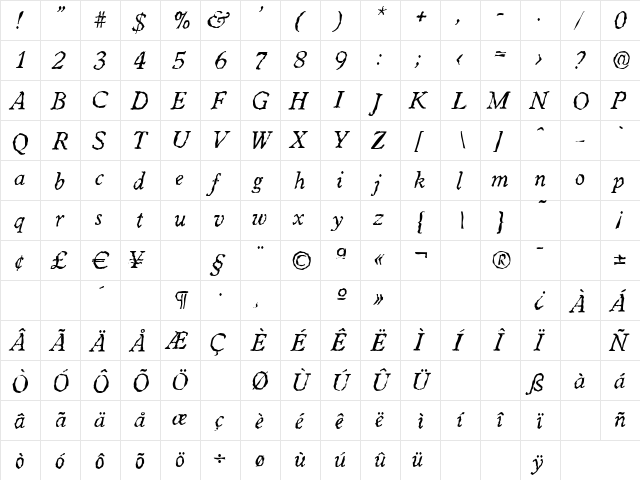
WorcesterRandom Italic
Design Context for WorcesterRandom Typeface
WorcesterRandom takes a measured approach to typography — its balanced proportions and neutral character make it a reliable workhorse for both digital and print work. The dynamic lean of this cut emphasises speed and emphasis in any layout.
Pro Tip: Use WorcesterRandom for emphasis, pull quotes, and subheadings where its slanted energy can add rhythm to the layout.